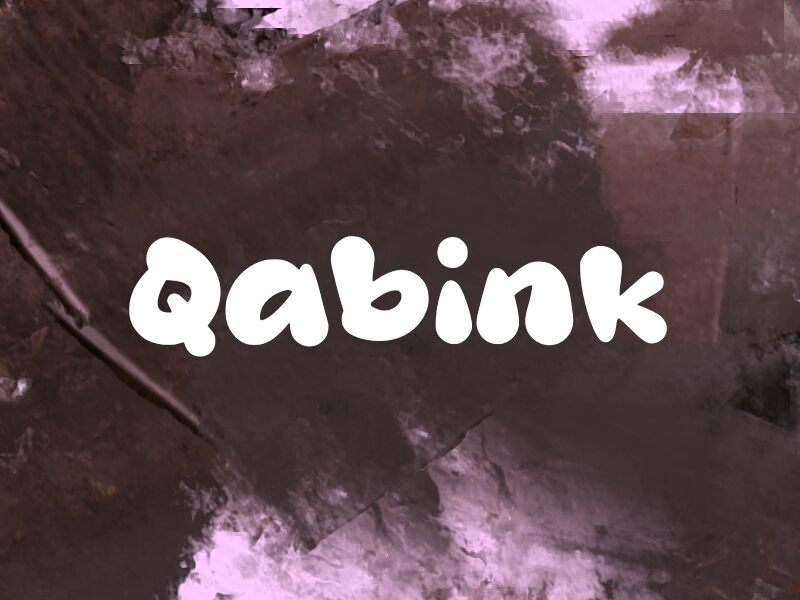
Qabink
Qabink font by wep is a free cartoon display typeface with chunky, inky curves that look like they’ve been squeezed straight from a marker pen. Each letter has a soft, bouncy silhouette and tight rhythm, so words feel like they’re bubbling across the page rather than sitting still. There’s a playful weight to the strokes that keeps text bold and legible even on busy, colorful backgrounds.
Using Qabink, headlines instantly pick up a friendly, hand-drawn energy that kids and casual audiences gravitate toward. This free font works beautifully for game titles, kids’ book covers, YouTube thumbnails, classroom posters, party invitations, and playful branding. Keep Qabink large and bold, then pair it with a clean geometric sans serif for smaller supporting text to balance all that joyful wobble.